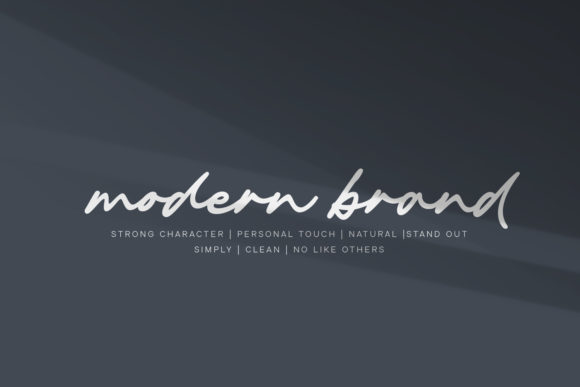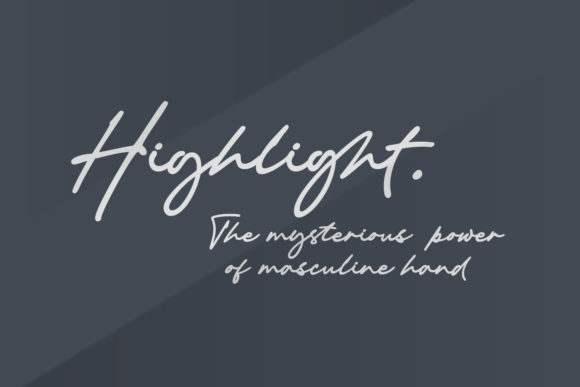
Piedmont Font
db-ku.com - Script & Handwritten -- Piedmont is a simple and elegant handwritten font. Fall in love with its incredibly versatile style and use it to create gorgeous wedding invitations, beautiful stationary art, eye-catching social media posts, and much more!